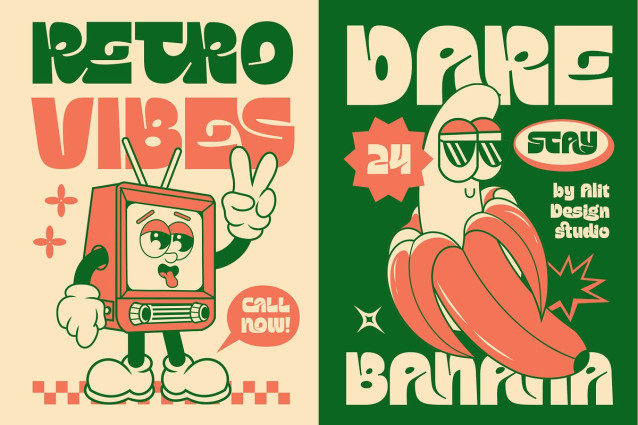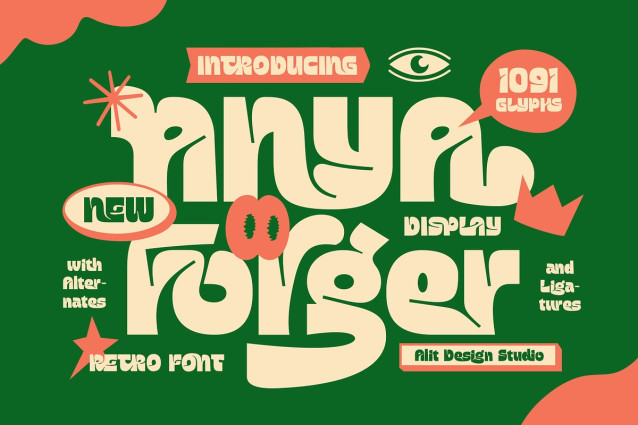
Anya Forger Font
Anya Forger Font isn’t just a font; it’s a time machine to the grooviest era of design. Heavily inspired by the bold, liquid-like aesthetics of the 1970s and infused with a modern “Rubber Hose” cartoon vibe, this font is engineered to turn heads and spark joy. Created by Alit Design Studio, it strikes the perfect balance between nostalgic charm and contemporary versatility.